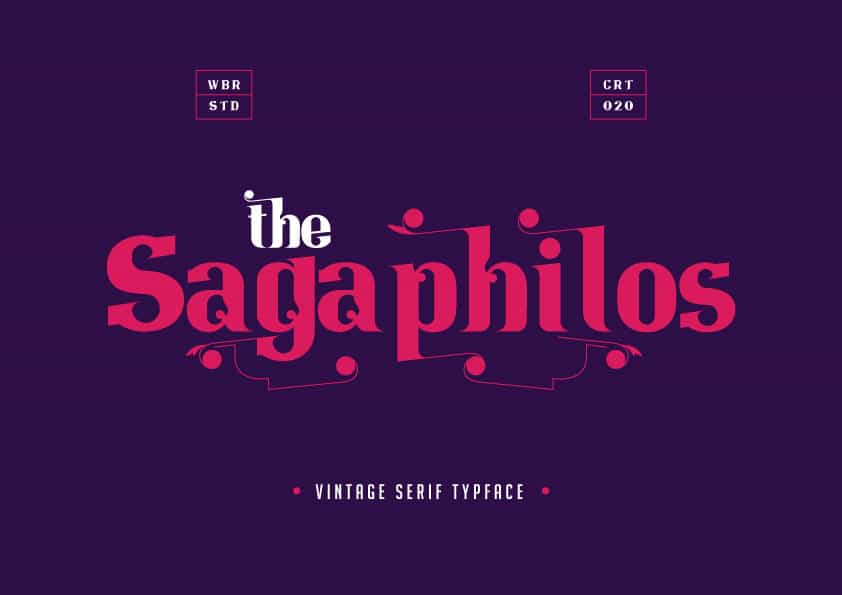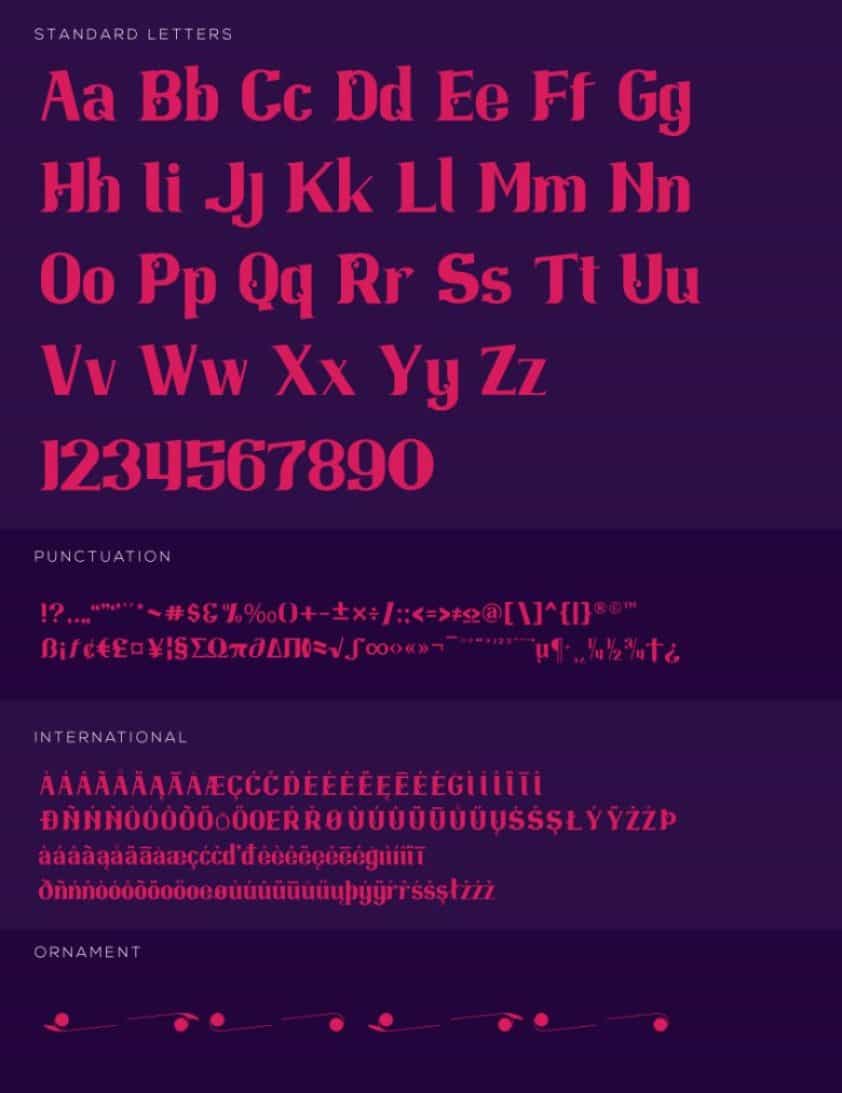
Discover Sagaphilos Typeface, part of the Serif Display Vintage collection—a versatile and unique font perfect for adding a personal touch to your projects. Download it for free and enjoy crafting designs with style, from invitations to social media posts. This font is available exclusively for personal use, giving you the freedom to create without limits. Unlock your creativity with Sagaphilos Typeface today!
Sagaphilos is an elegant, luxurious and fashionable serif typeface with modern features that is single height font featuring mixed uppercase and lowercase characters for an eclectic appearance in layouts. Sagaphilos is a prominent font, though also well suited to body copy, that we suggest using in various fields of work including magazines (titles as well as layouts), logos and branding invitations, quotes blogs headers posters and advertisements.